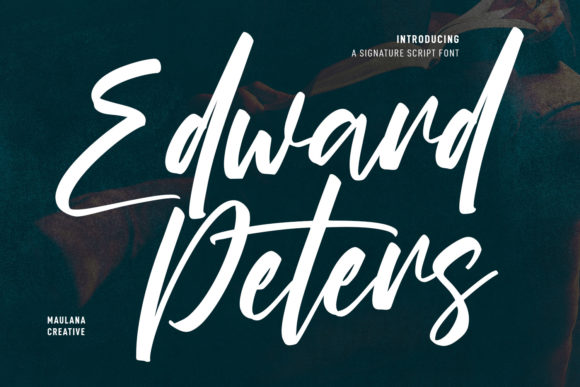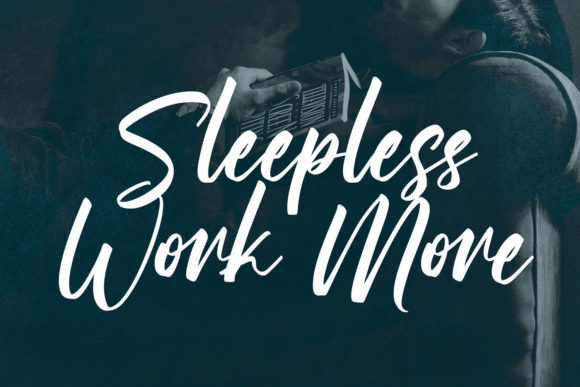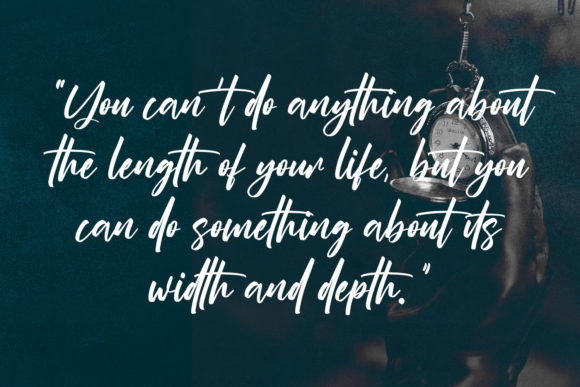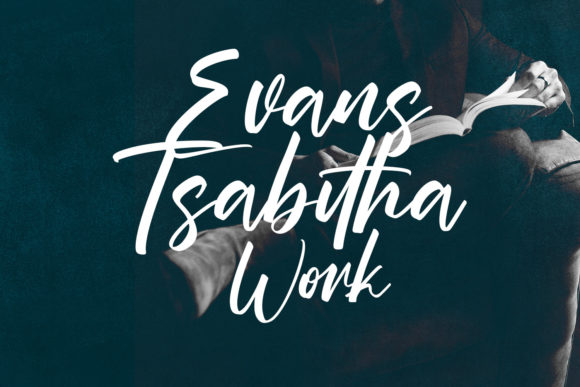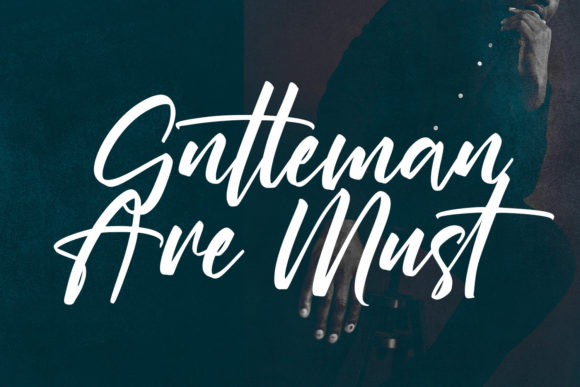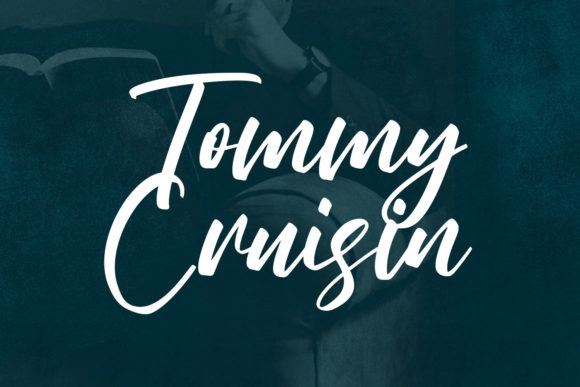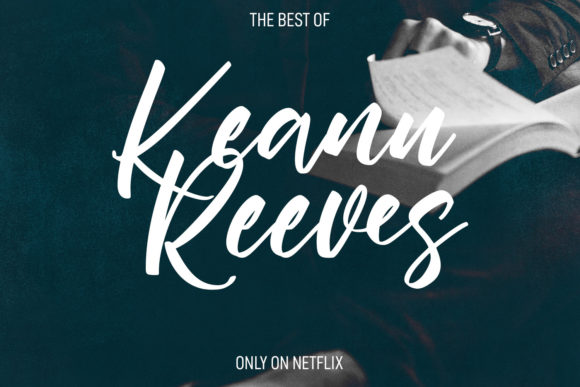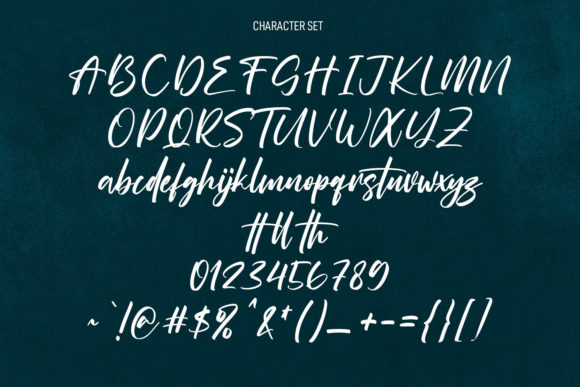
About Edward Peters Font
Edward Peters is a distinct yet relaxed script font. Fall for its ravishing style and use it to create gorgeous designs. Use this font for your designs and explore its endless possibilities.